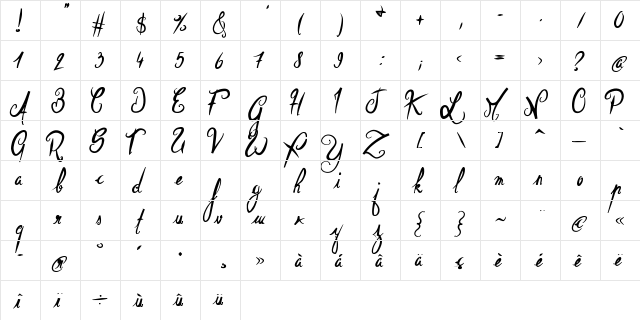
ElegantDragon Bold
Design Context for ElegantDragon Typeface
ElegantDragon is a composed and adaptable typeface that performs quietly and consistently across a wide range of design contexts. Its bold stroke weight gives it real presence on the page.
Pro Tip: Pair ElegantDragon with a font of contrasting weight or personality to build a more expressive typographic hierarchy.